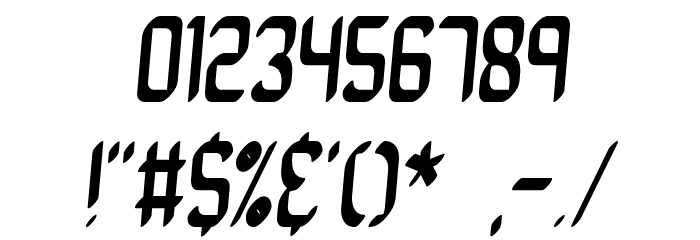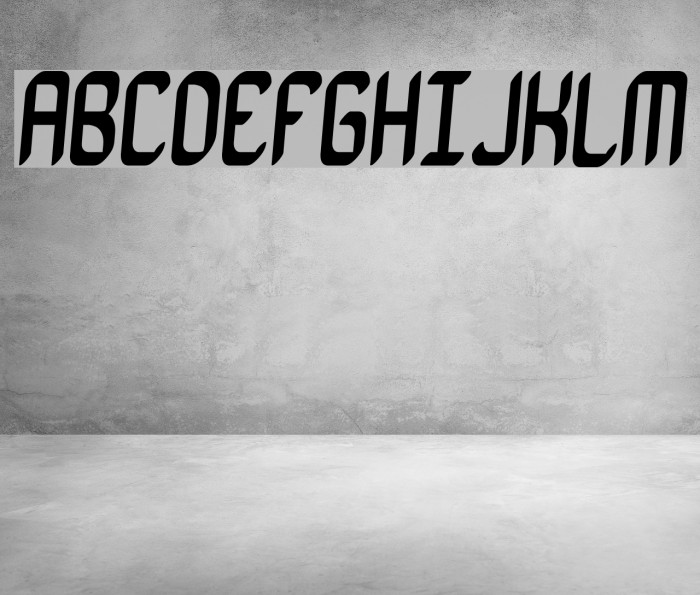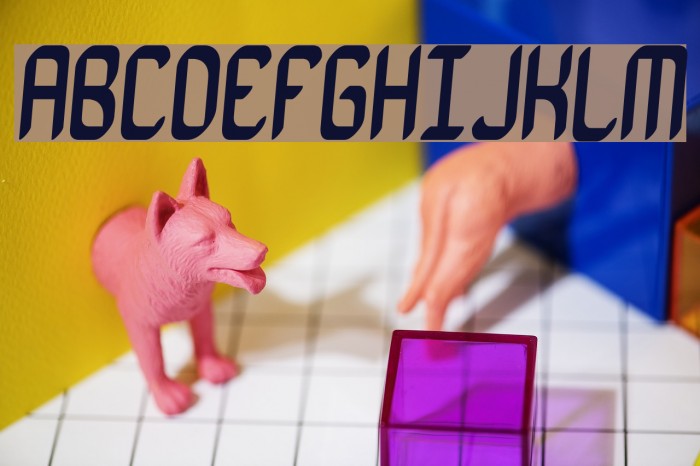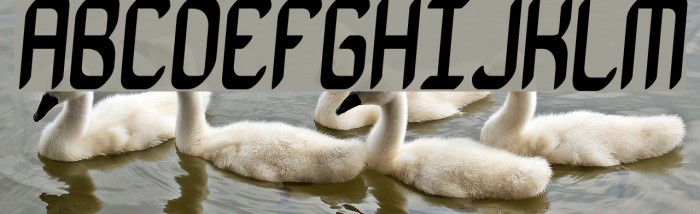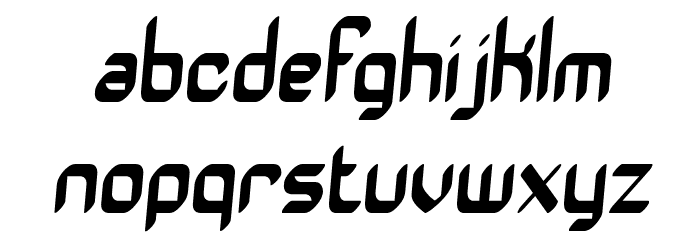
Vantage BRK Font
This font features a bold and dynamic style with a futuristic and angular design. The characters are slightly slanted, giving a sense of motion and speed. The uppercase letters are tall and narrow, while the lowercase letters maintain a consistent style, complementing the uppercase with a slightly more rounded appearance. The numbers are distinct and easily readable, following the same angular theme. Special characters are designed to match the overall aesthetic, making this font suitable for modern and tech-oriented projects.